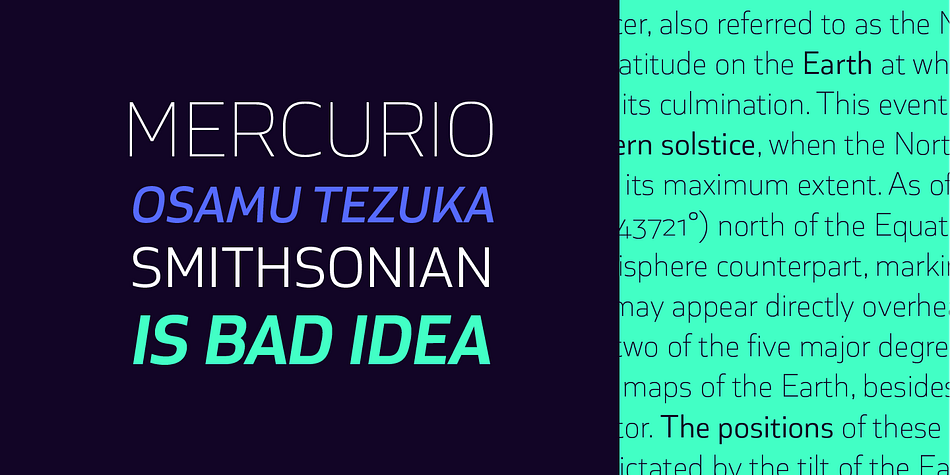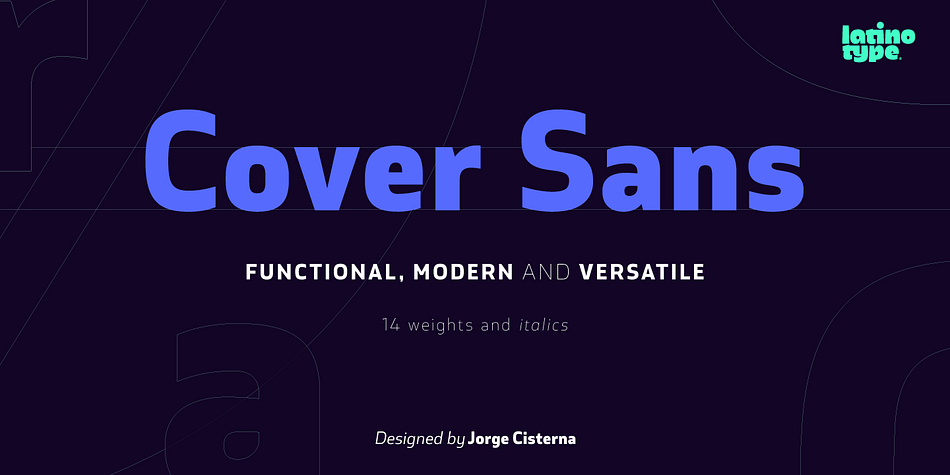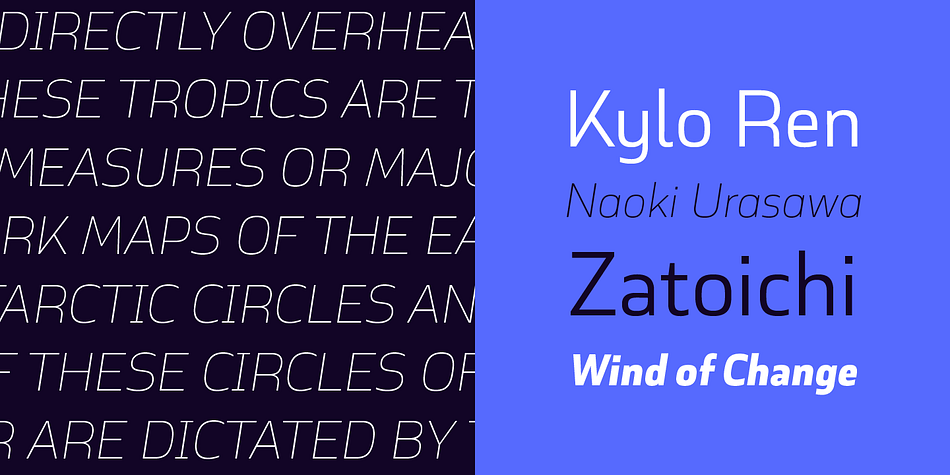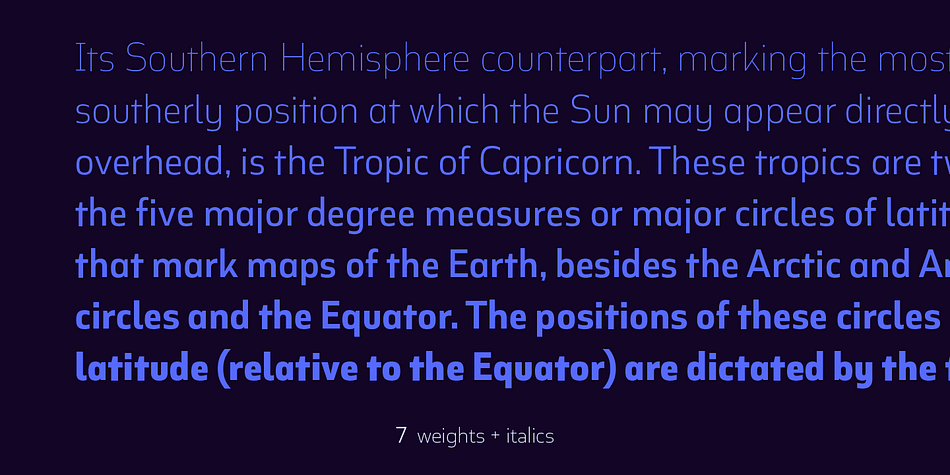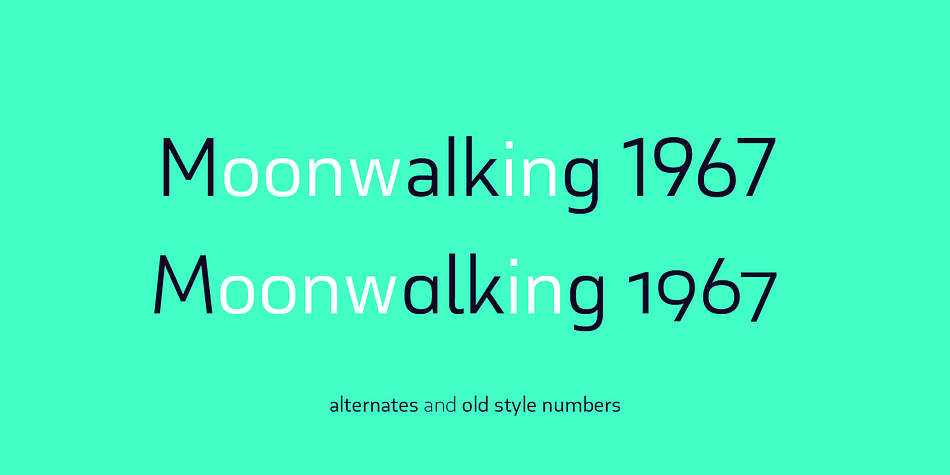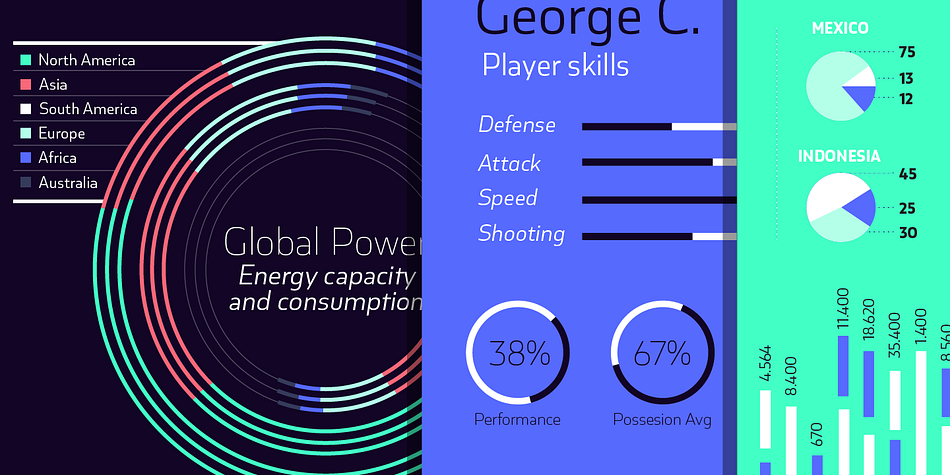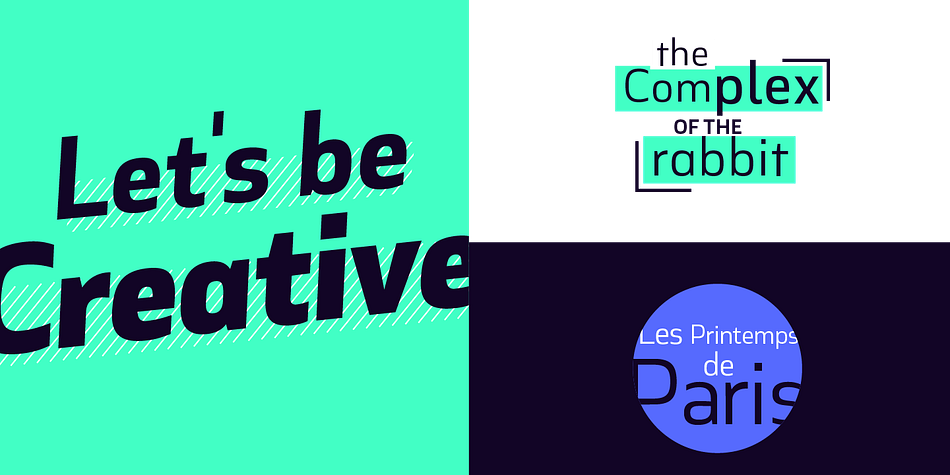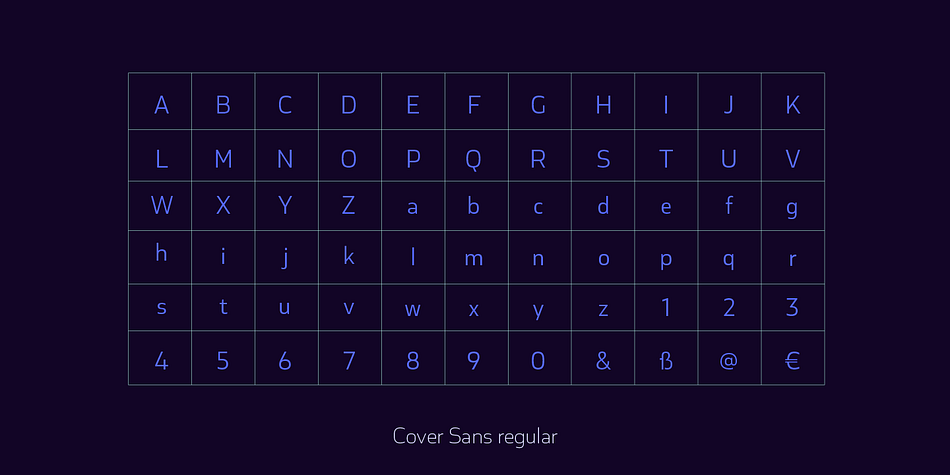
Designed by Jorge Cisterna, Cover Sans is a sans serif font family. This typeface has fourteen styles and was published by Latinotype.
Cover Sans is a humanist geometric typeface with an orthogonal structure, which provides stability when composing a text. Open shapes and low x-height give this font balance and make it look like an air-breathing typeface.
Cover Sans is a stable and strong condensed font that works well for magazines and publishing. The strong personality of its alternative characters gives the font a modern and elegant style, which makes it ideal for use on annual reports as well as on business logotypes.